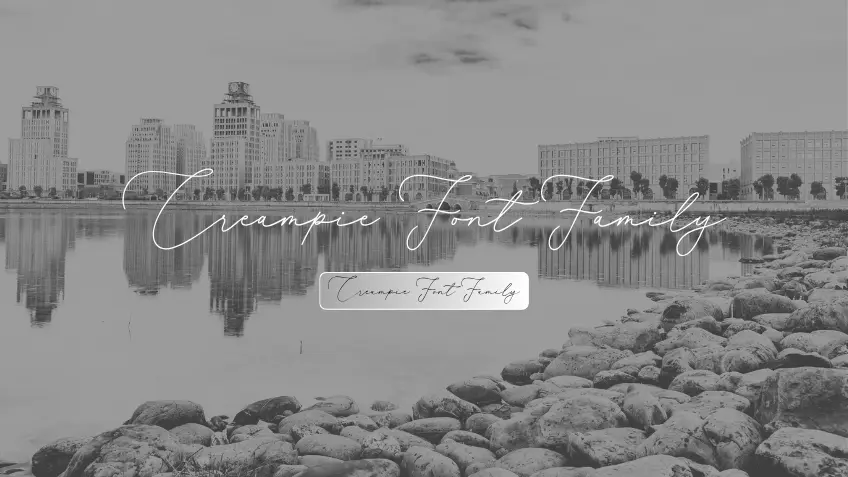
Creampie Regular
Creampie Regular Font
The font Creampie Regular, designed by Erlangga Suherman, falls under the Display, Script category & Creampie font family. Its smooth, flowing letterforms make it a versatile choice for projects that require both elegance and readability. Creampie is particularly well-suited for Book Text, Branding, Valentine, Headlines, Titles, Display Text, Children's Books, Decorative Elements, Variable Font Applications and Christmas cards. With its balance of simplicity and decorative appeal, this font brings a polished touch to both personal and professional designs.